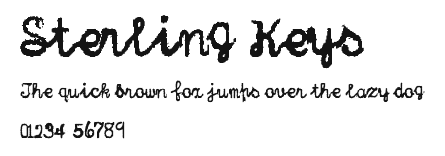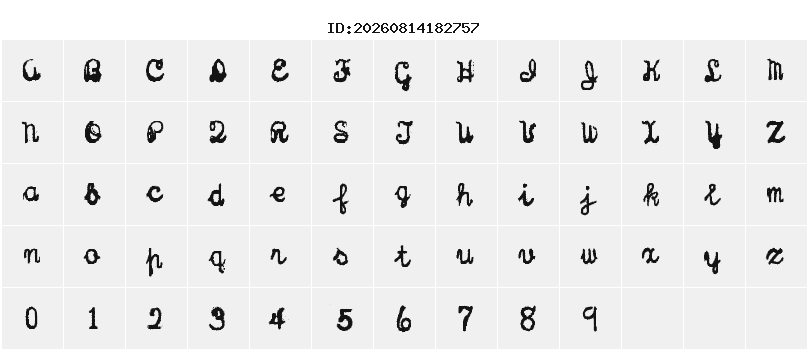
• Font Name: Sterling Keys
• Designer: Xerographer Fonts
• Description: Inspired by Smith Corona Sterling. One of Sea Monster's Typewriters. Made at Xerographer Studios Chico,CA
About Sterling Keys.ttf